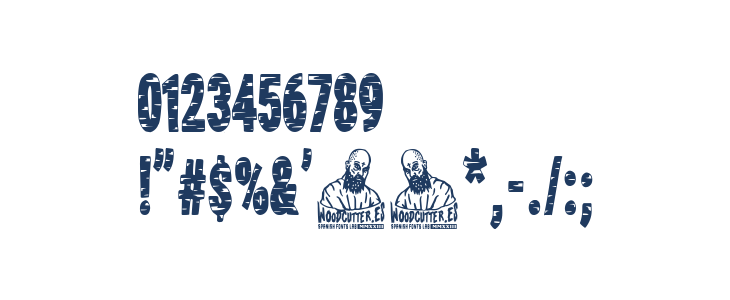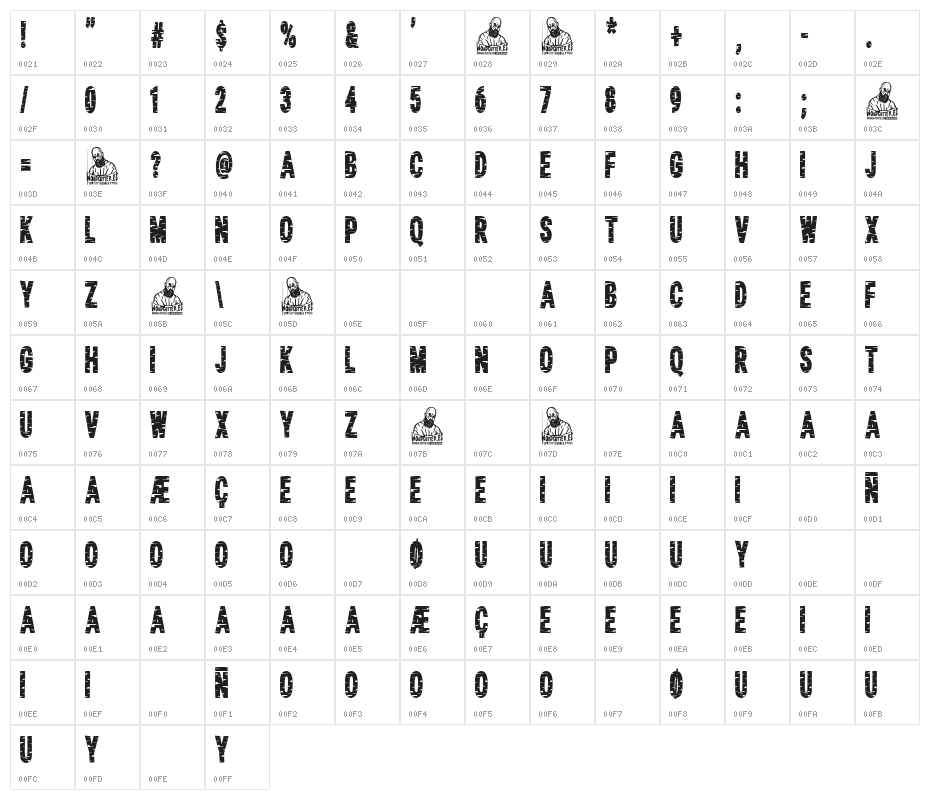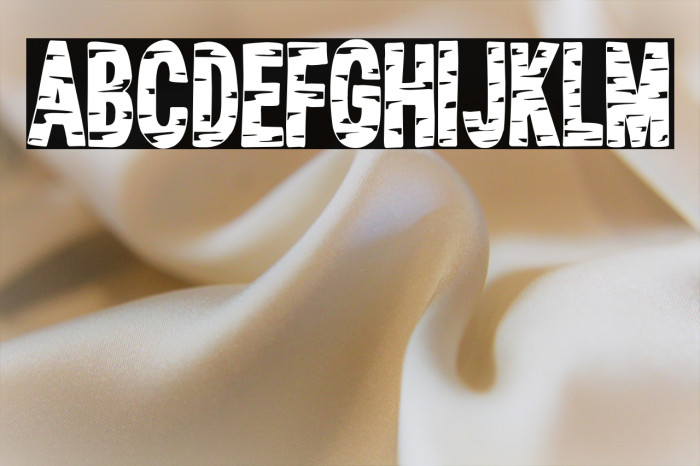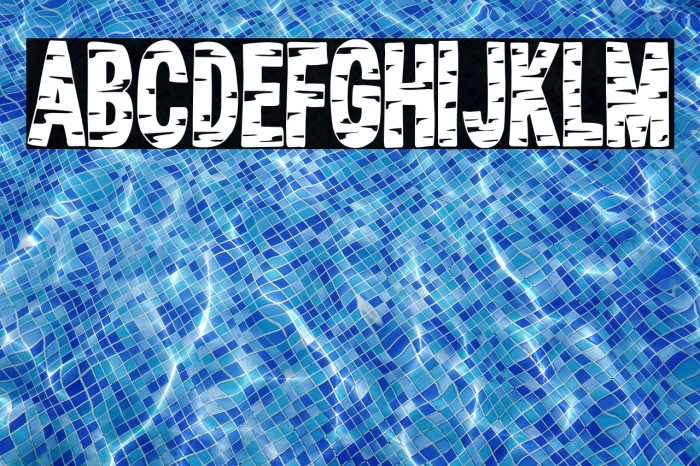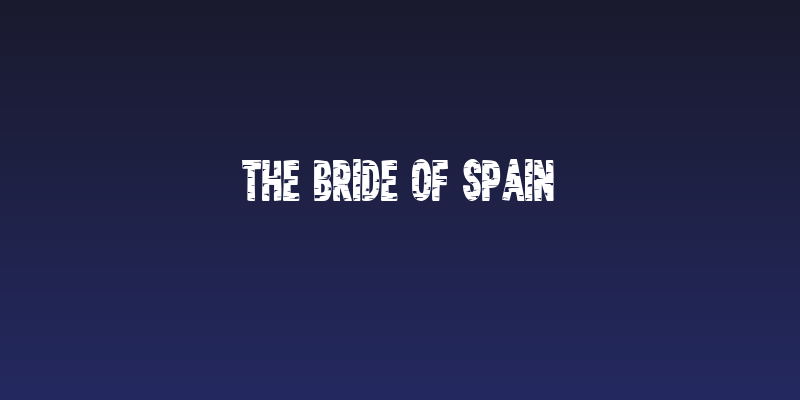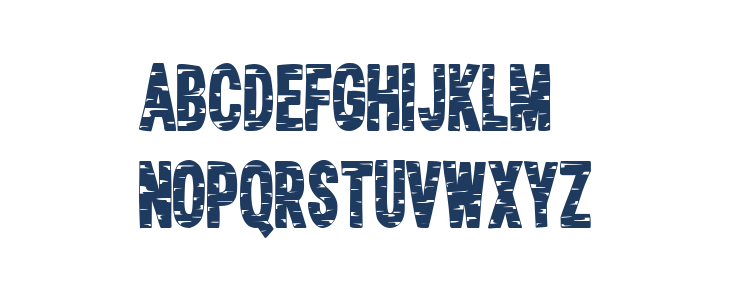
The Bride of Spain Font
The Bride of Spain Description
This font features a bold and rugged design with a distressed texture that gives it a weathered, vintage appearance. The uppercase and lowercase letters are uniformly bold, with a consistent width that maintains readability while adding a unique character to the text. The numbers and special characters follow the same stylistic approach, ensuring a cohesive look across all elements. The distressed effect adds a sense of depth and texture, making it ideal for projects that require a rustic or handcrafted feel. The overall style is both eye-catching and versatile, suitable for a variety of creative applications.
| Proposed Projects | Ideal for branding, posters, album covers, and any project requiring a vintage or rustic aesthetic. |